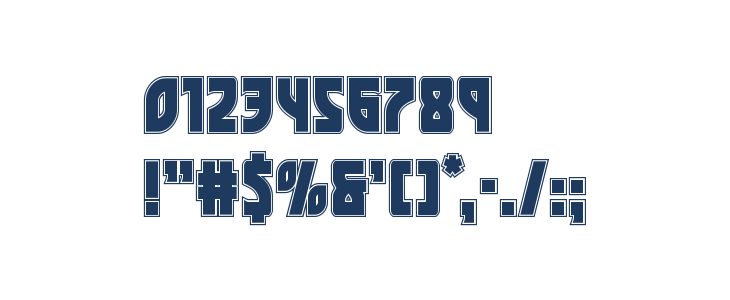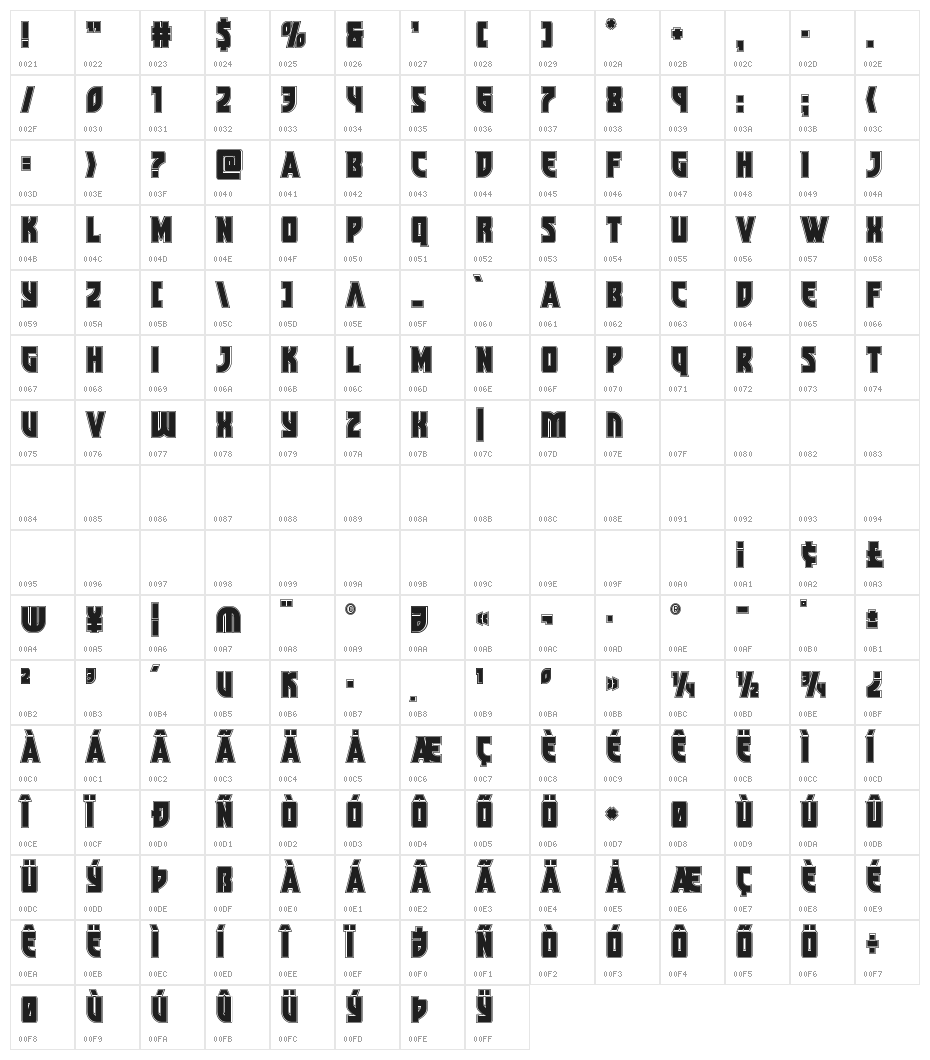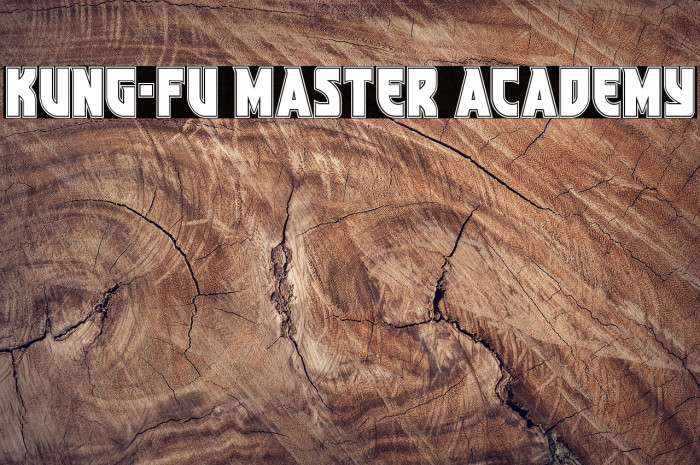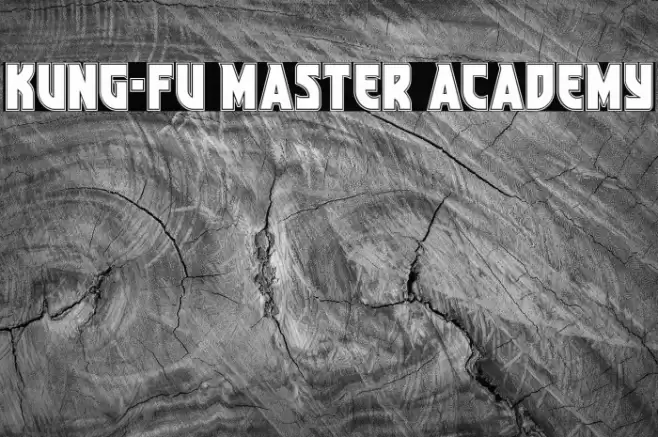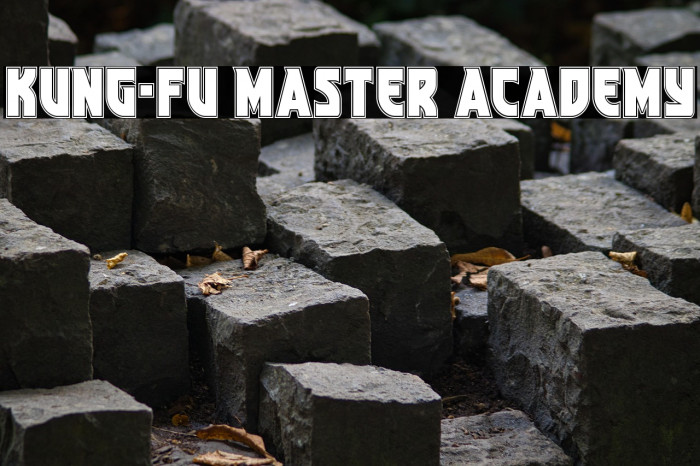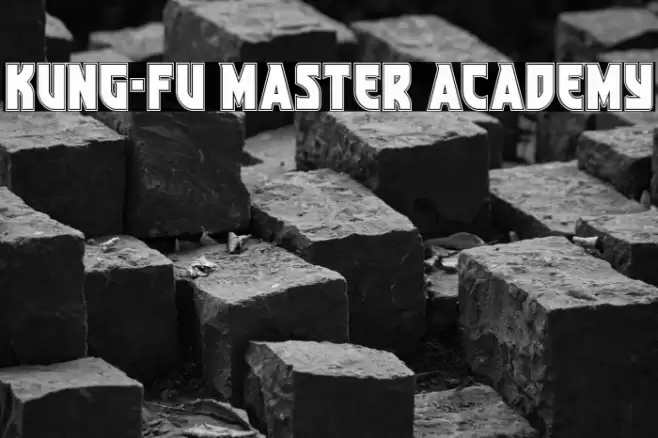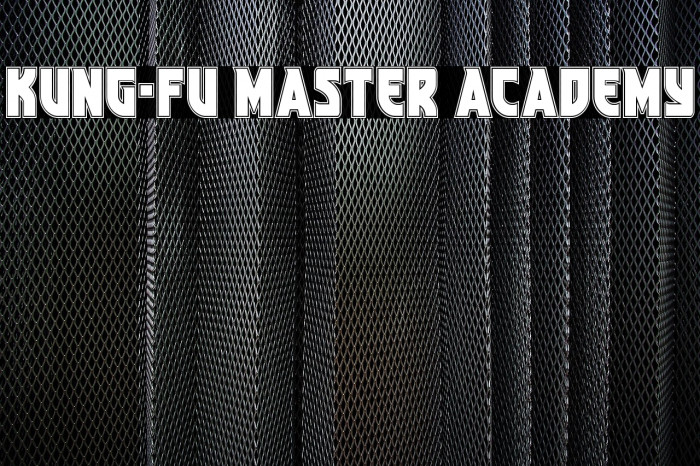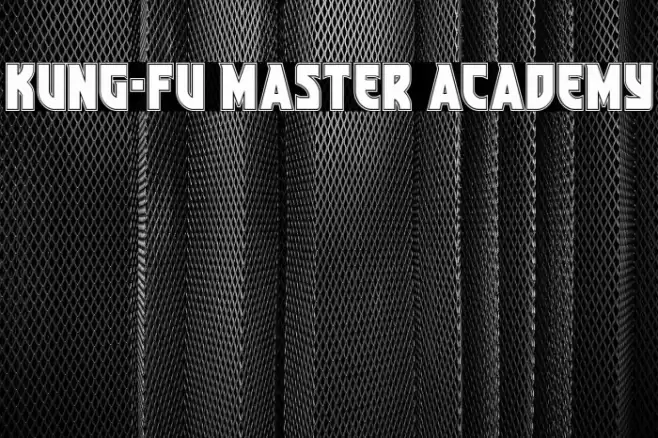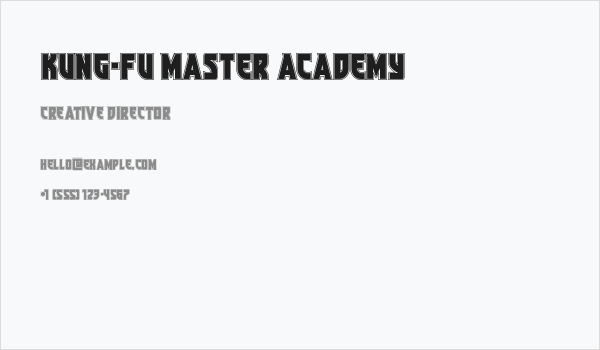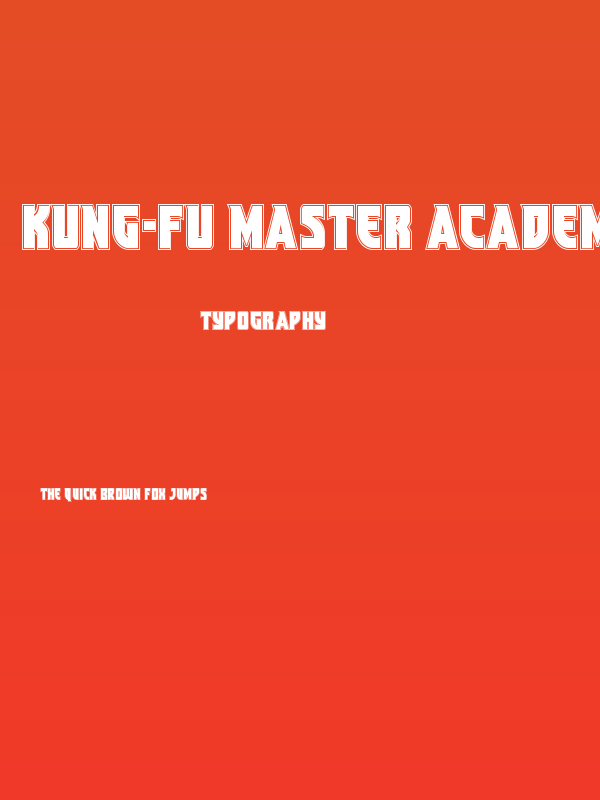
Kung-Fu Master Academy Font
Kung-Fu Master Academy Description
This bold and dynamic font features a strong, impactful design with thick, block-like characters. Each letter is outlined, creating a striking contrast between the inner and outer edges. The font has a geometric structure, with sharp angles and straight lines that convey a sense of power and authority. Its boldness is emphasized by the heavy weight and the wide, expansive letterforms. The style is reminiscent of martial arts or action-themed aesthetics, making it ideal for projects that require a sense of strength and energy.
Proposed ProjectsIdeal for martial arts branding, action movie posters, sports team logos, or any project needing a strong, energetic typeface.